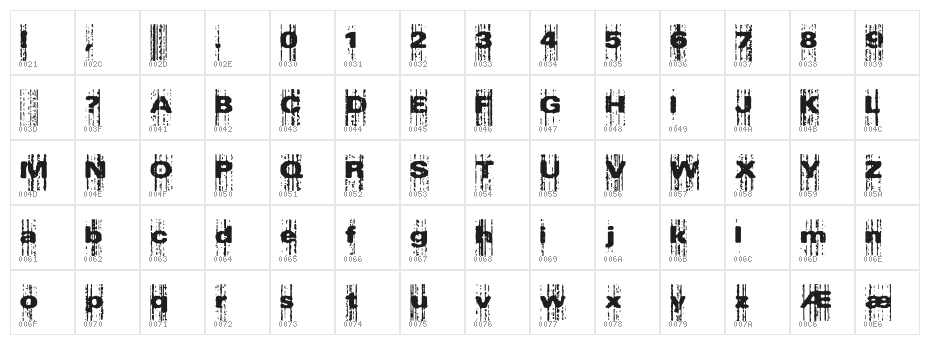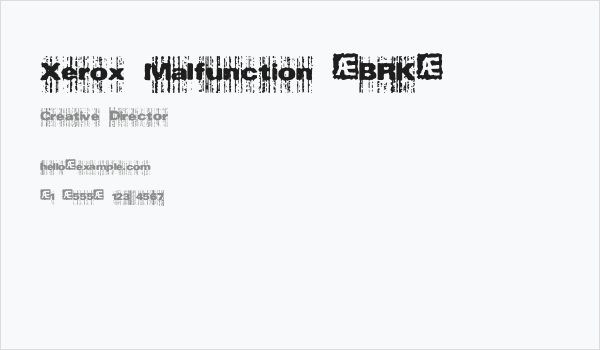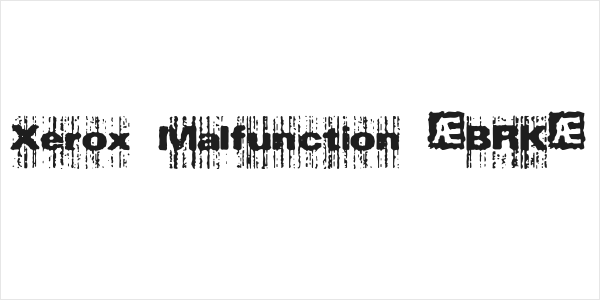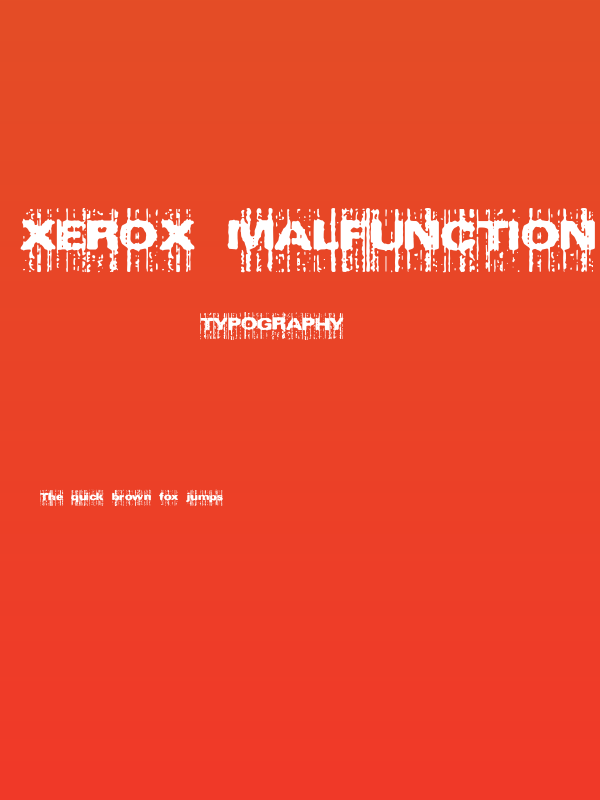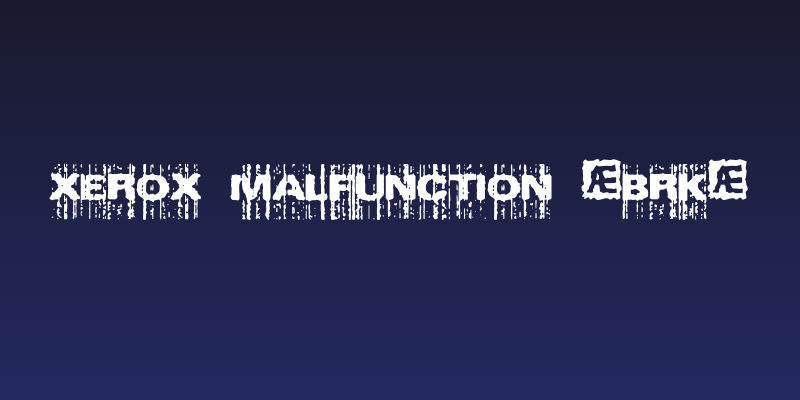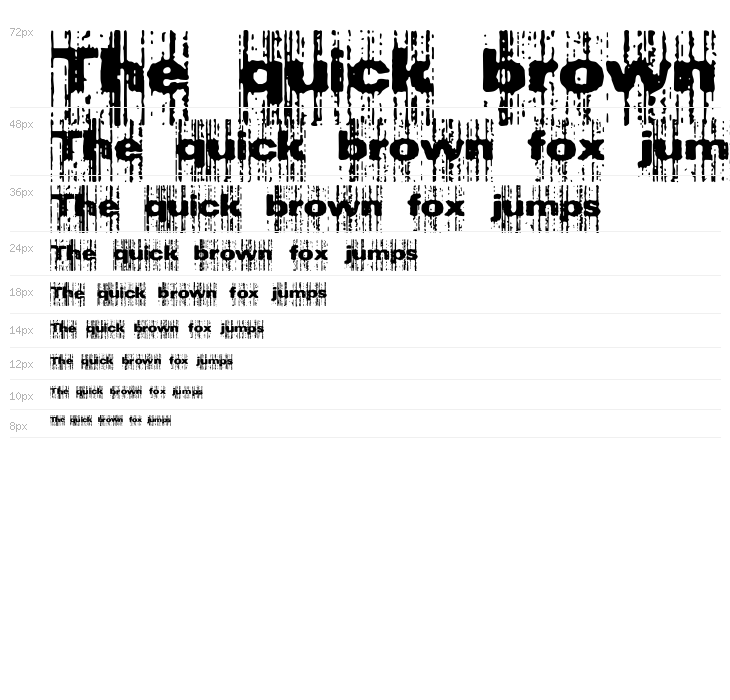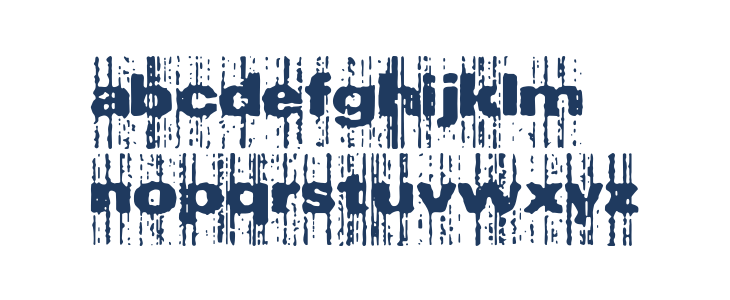
Xerox Malfunction [BRK] Font
Xerox Malfunction [BRK] Description
This font features a distressed, glitch-like appearance, reminiscent of a malfunctioning photocopy machine. The characters are bold and heavily textured, with irregular vertical streaks that create a chaotic yet intriguing visual effect. The uppercase and lowercase letters maintain a consistent style, with rounded edges and a substantial presence. Numbers and special characters follow the same design, ensuring uniformity across all elements. This font's unique style makes it stand out, offering a distinct look that captures attention and conveys a sense of disruption or technological error.
| Overall Style | Modern, Grunge |
| Use Case | Headlines, Posters, Digital Art |
| Proposed Projects | Ideal for projects requiring a grunge or tech-inspired aesthetic, such as album covers, posters, or digital art. |